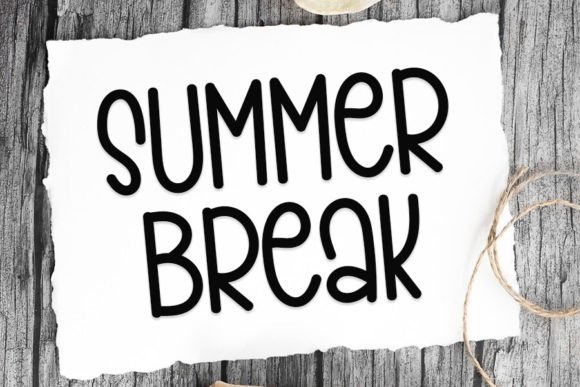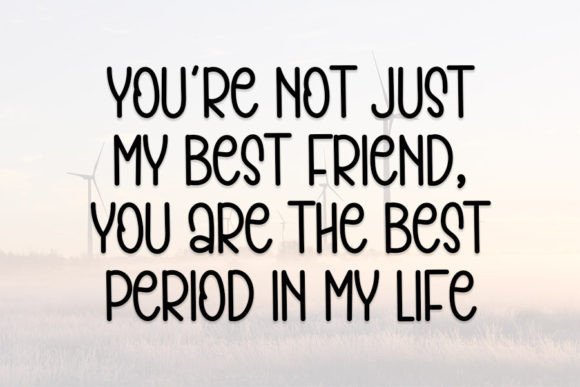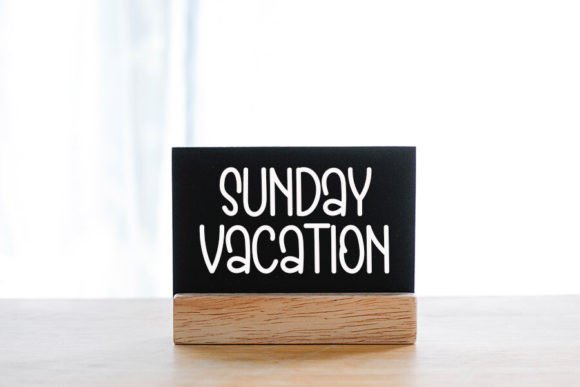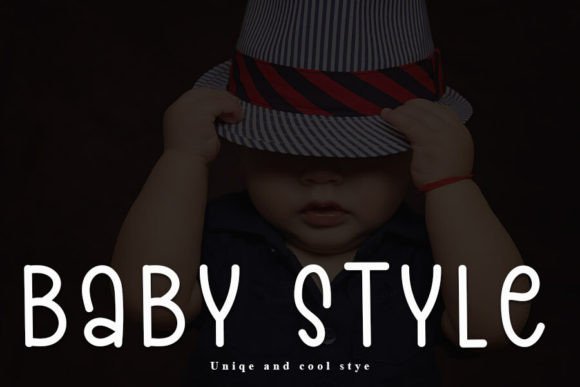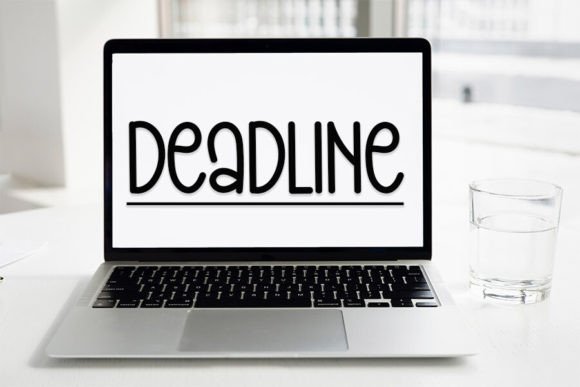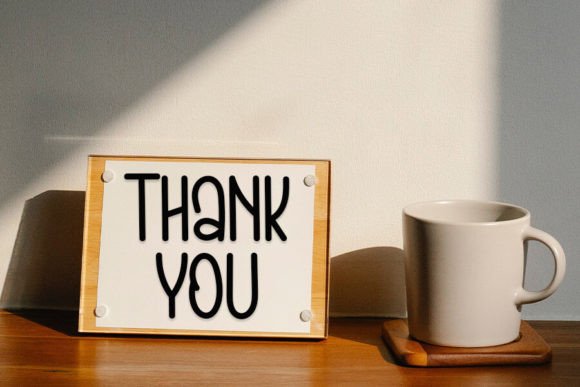
Introducing Happy Sunshine Font: Elevate Your Designs with Elegance and Charm
Are you on the hunt for a font that embodies the perfect blend of sophistication and playfulness? Look no further than the Happy Sunshine font. This stylish typeface is designed to bring a sense of warmth and creativity to any design, making it an excellent choice for designers and crafters alike. In this article, we’ll dive into the world of Happy Sunshine font, exploring its unique features, and the various ways you can use it to elevate your designs.
The Unique Characteristics of Happy Sunshine Font
Happy Sunshine font is a true standout in the world of typography. Its fluid strokes and natural flow create a captivating, sophisticated look that’s sure to turn heads. The font’s elegant design makes it perfect for adding a personal touch to invitations, branding, or social media graphics. Whether you’re looking to create a sense of luxury or approachability, Happy Sunshine font is the perfect choice.
Key Features of Happy Sunshine Font
- Fluid Strokes: Happy Sunshine font features smooth, flowing strokes that give it a natural and elegant feel.
- Sophisticated Look: The font’s unique design creates a sophisticated look that’s perfect for high-end branding and designs.
- Warmth and Creativity: Happy Sunshine font brings a sense of warmth and creativity to any design, making it perfect for projects that require a personal touch.
- Versatility: This font is versatile and can be used for a wide range of design projects, from invitations and branding to social media graphics.
Using Happy Sunshine Font in Your Designs
Happy Sunshine font is an incredibly versatile typeface that can be used in a variety of design projects. Here are a few ideas to get you started:
- Invitations: Add a touch of elegance to your invitations with Happy Sunshine font. Perfect for weddings, baby showers, and other special occasions.
- Branding: Use Happy Sunshine font to create a sophisticated brand identity that exudes luxury and approachability.
- Social Media Graphics: Add a personal touch to your social media graphics with Happy Sunshine font. Perfect for creating engaging and eye-catching posts.
- Stationery: Use Happy Sunshine font to create beautiful stationery, including letterheads, business cards, and more.
Why Choose Happy Sunshine Font?
With so many fonts to choose from, why should you choose Happy Sunshine font? Here are a few reasons why this font stands out from the rest:
- Unique Design: Happy Sunshine font features a unique design that’s sure to turn heads.
- Elegance and Charm: This font embodies the perfect blend of elegance and charm, making it perfect for a wide range of design projects.
- Easy to Read: Happy Sunshine font is easy to read, making it perfect for body text and headlines.
- High-Quality: This font is of high quality, ensuring that it will look great in any design.
- What is Happy Sunshine font? Happy Sunshine font is a stylish typeface designed to bring a sense of warmth and creativity to any design.
- What is Happy Sunshine font used for? Happy Sunshine font can be used for a wide range of design projects, including invitations, branding, social media graphics, and more.
- Is Happy Sunshine font easy to read? Yes, Happy Sunshine font is easy to read, making it perfect for body text and headlines.